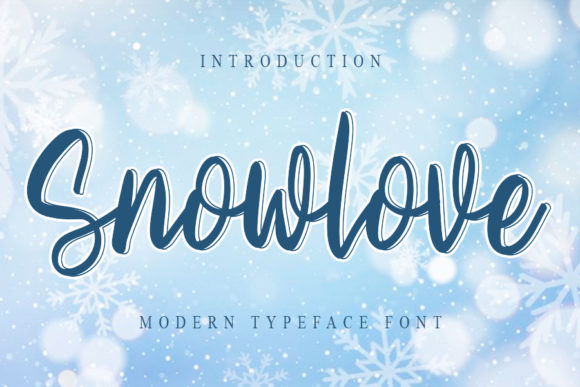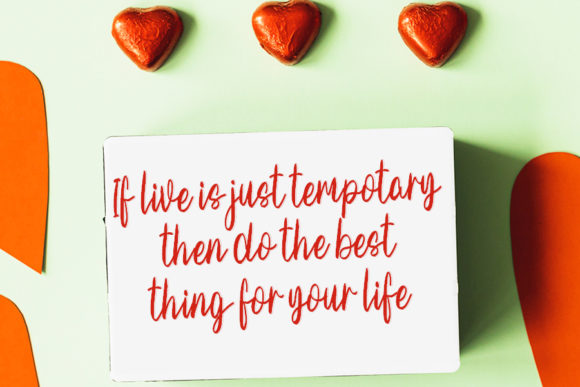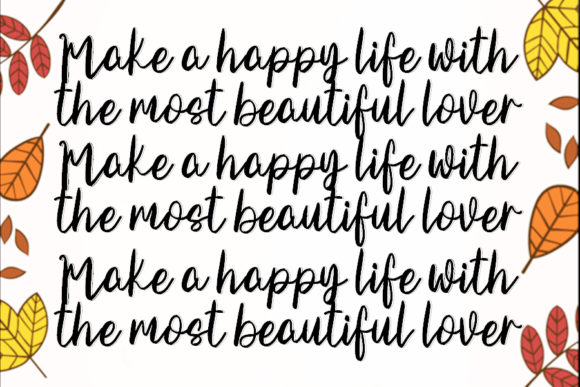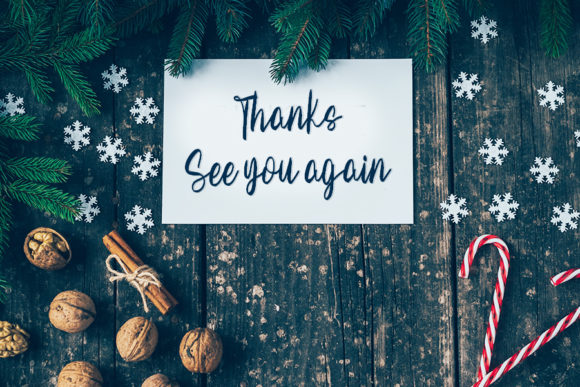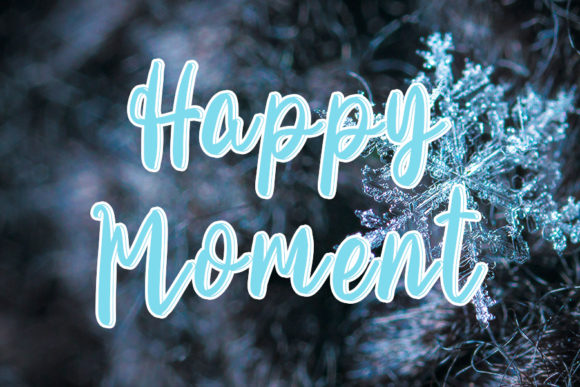
Snowlove Font
About Snowlove Font
Snowlove is a relaxed and beautiful paint brush handwritten font. It can be used for various purposes such as logos, wedding invitations, headings, t-shirts, letterhead, signage, labels, news, posters, badges and so much more.